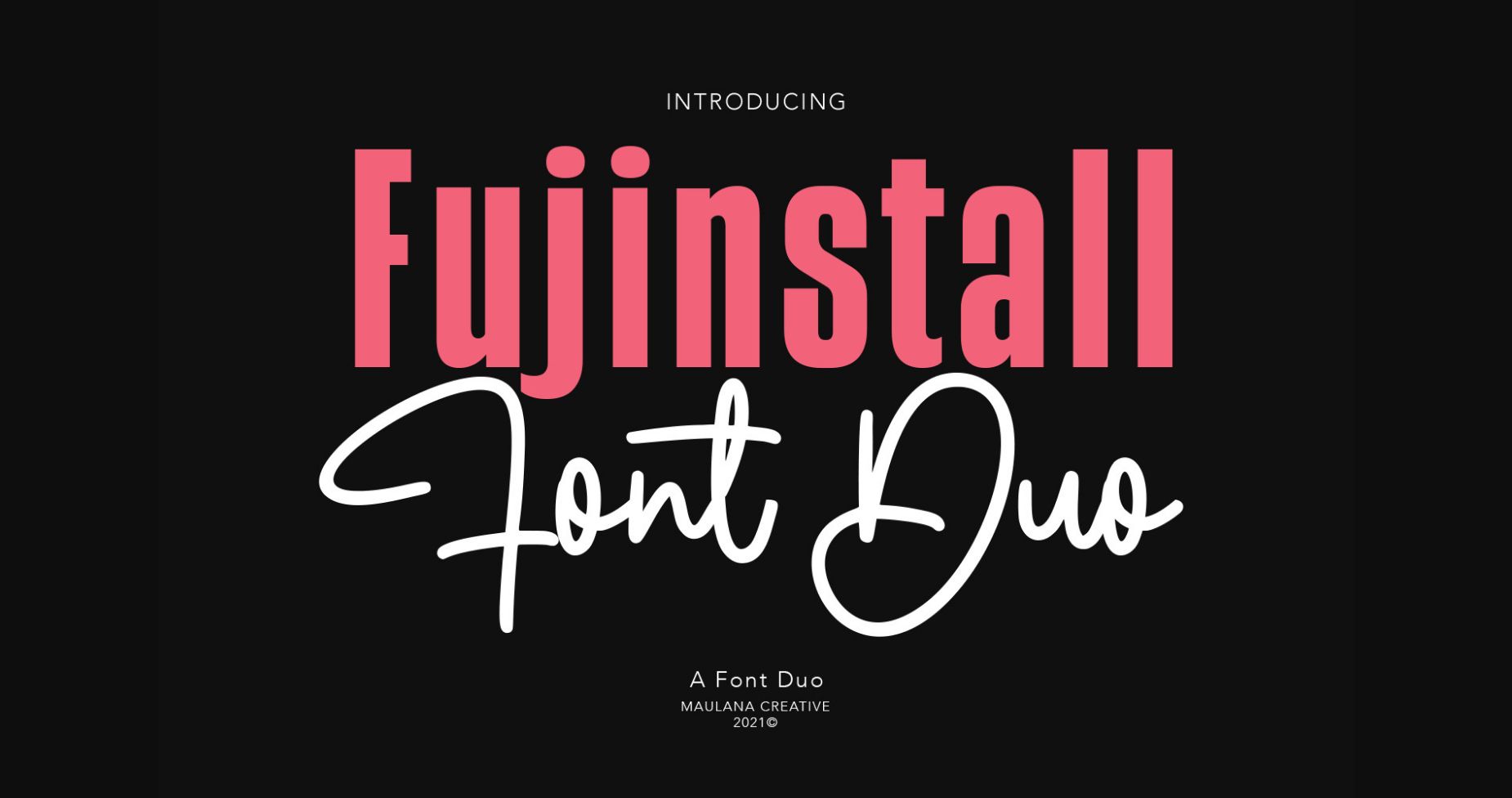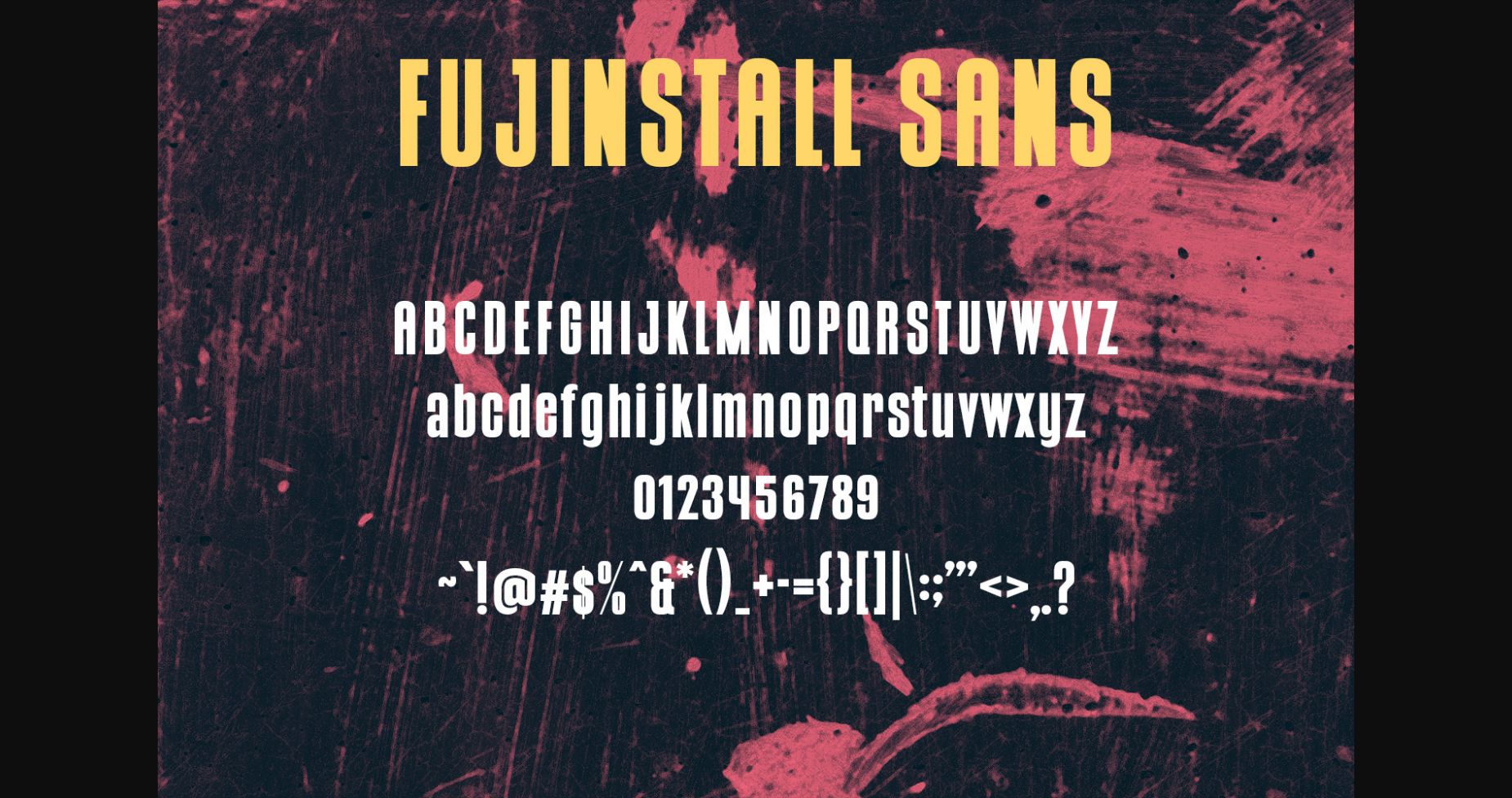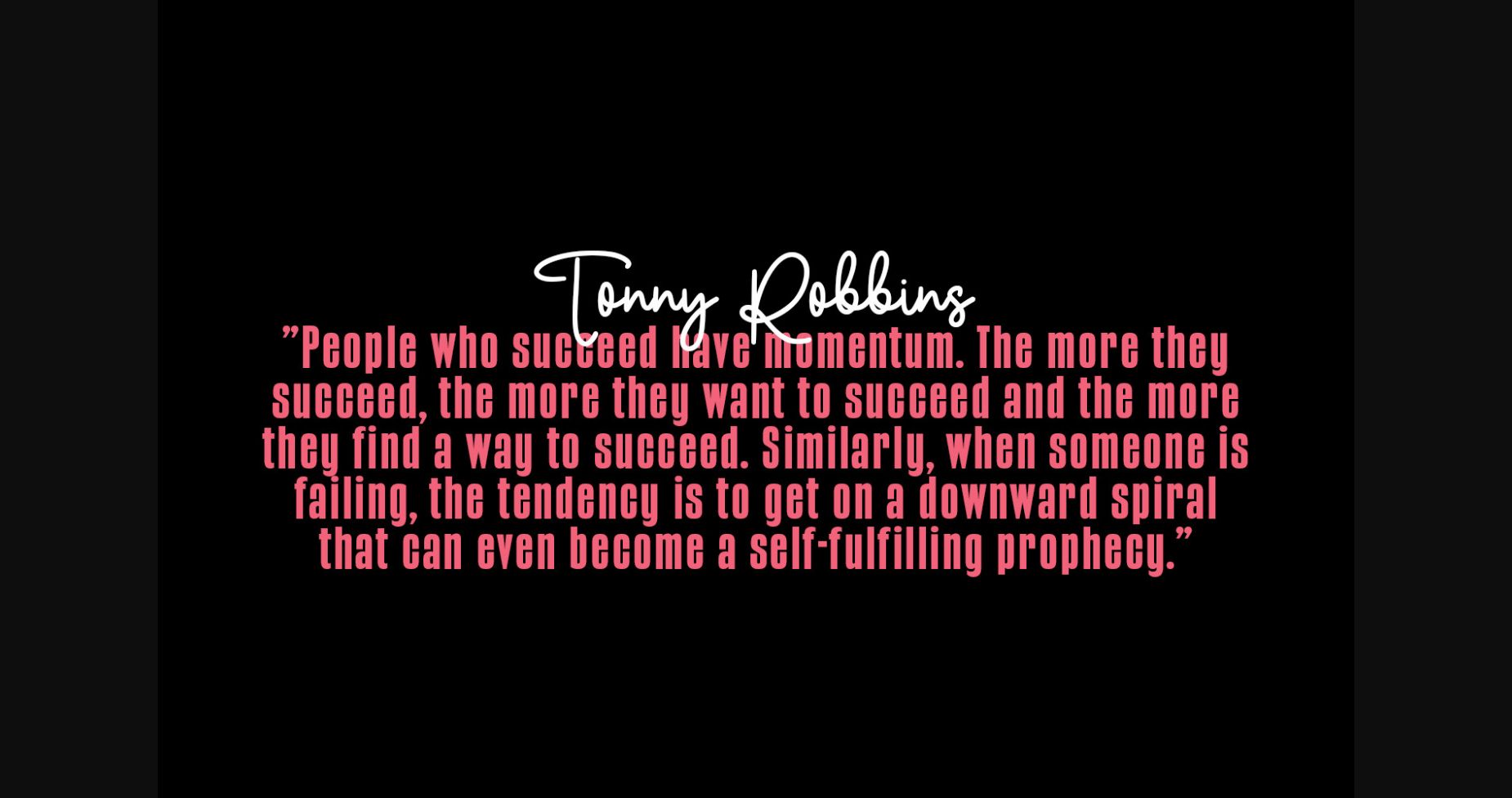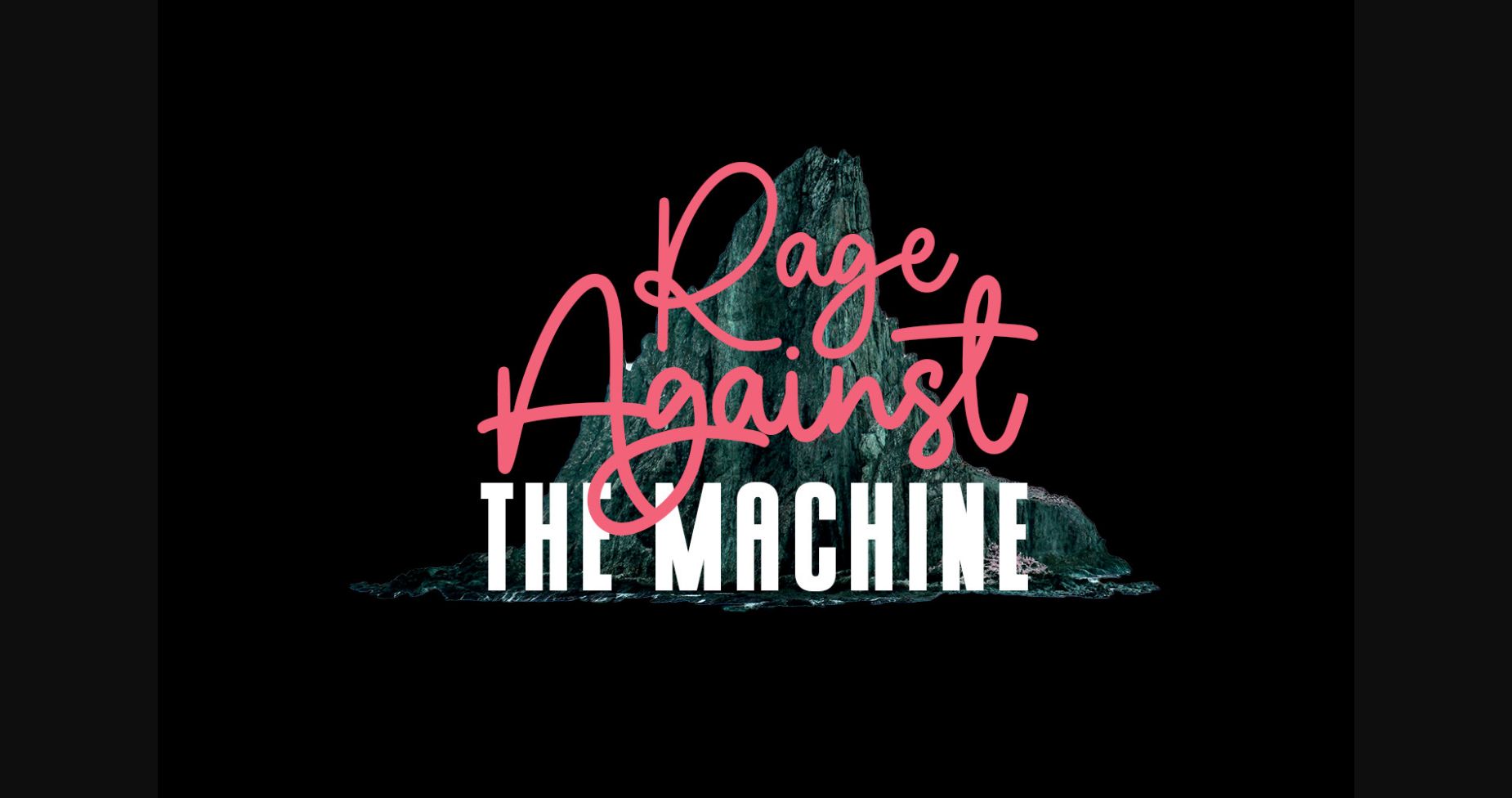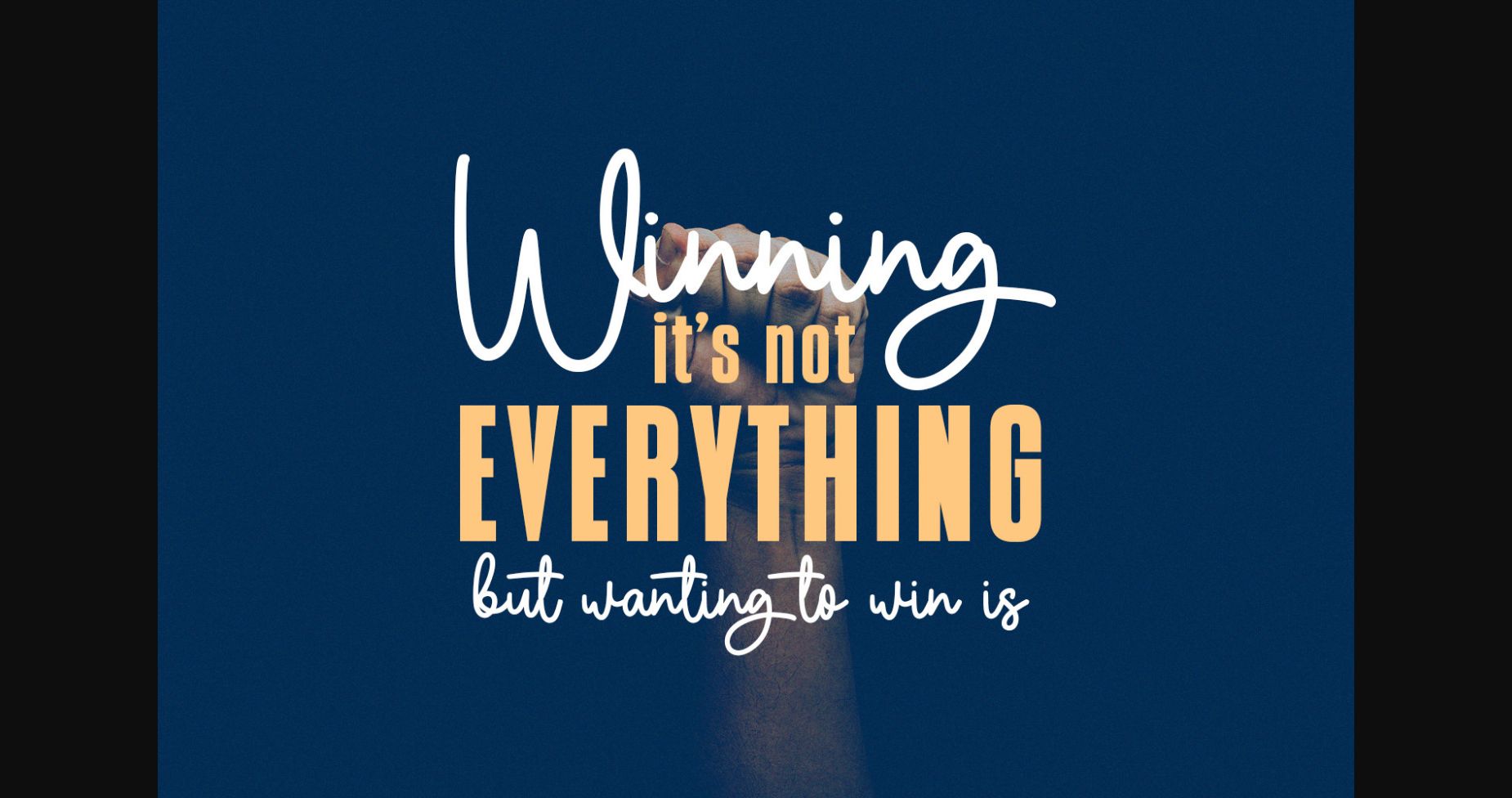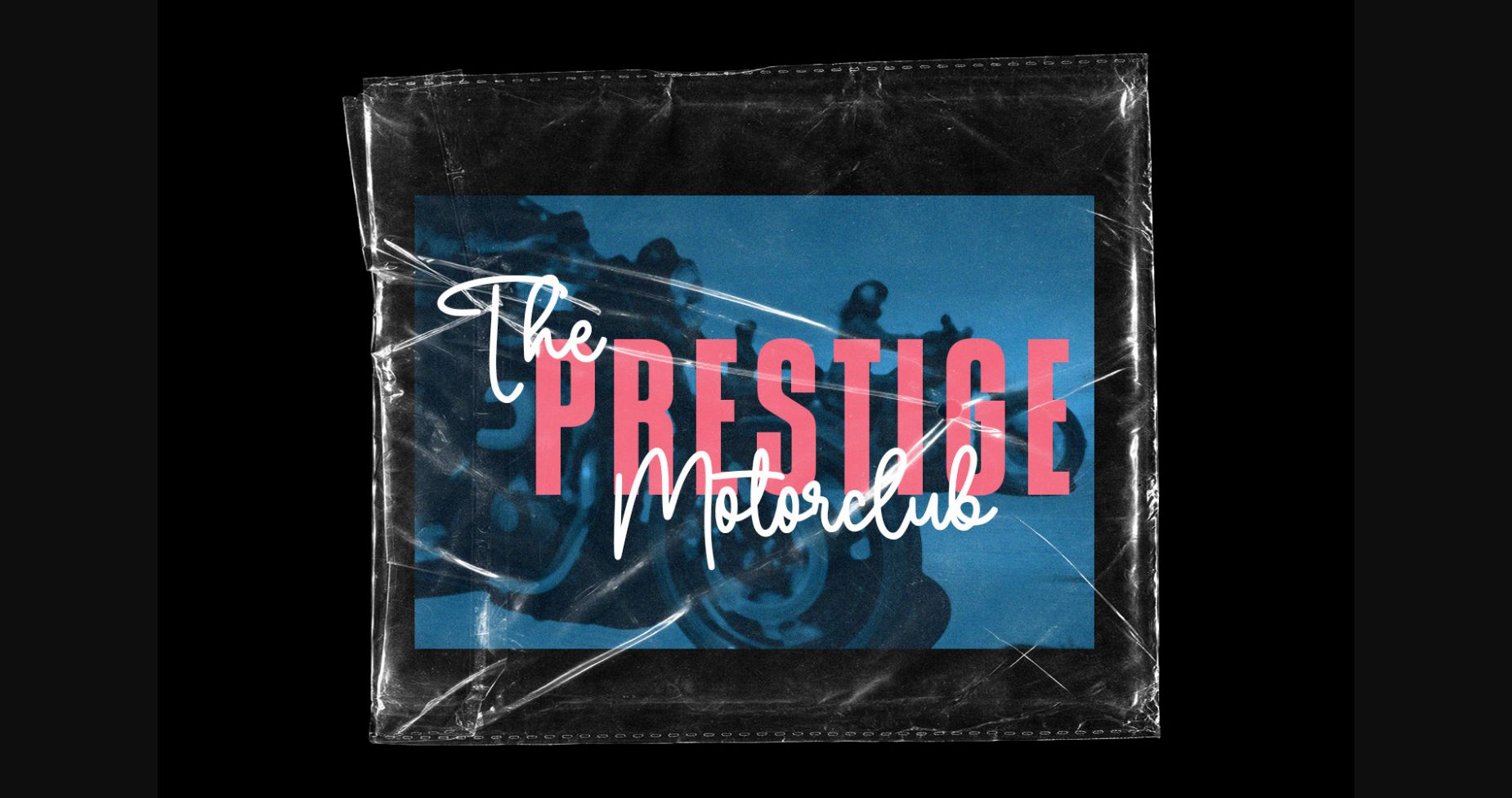
Fujinstall Font Duo Font
About Fujinstall Font Duo Font
Fujinstall Font Duo is a cool and versatile duo font (sans serif and script). Fall for its ravishing style and use it to create gorgeous wedding invitations, beautiful stationary art, eye-catching social media posts, and much more!